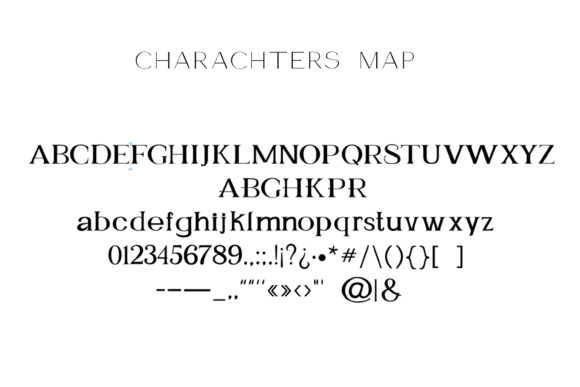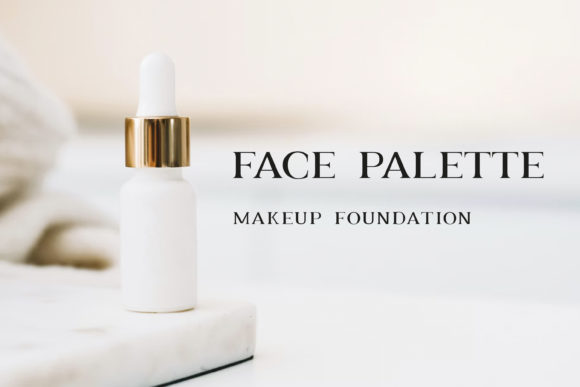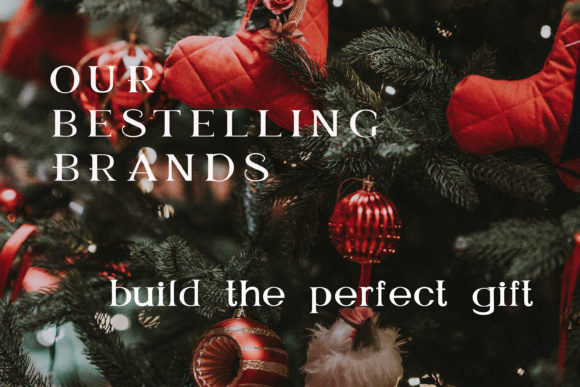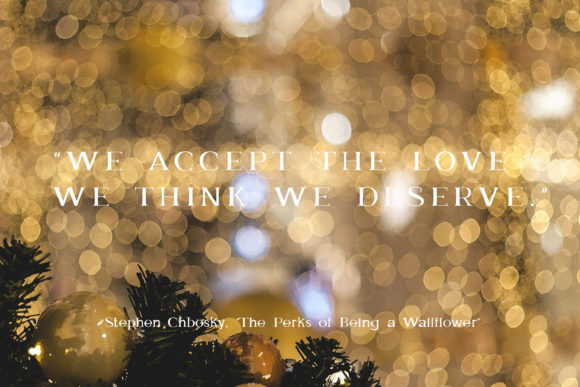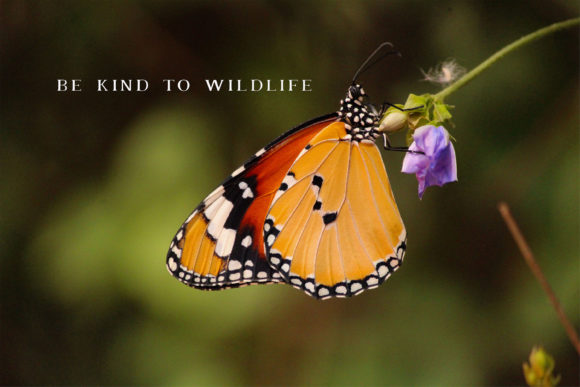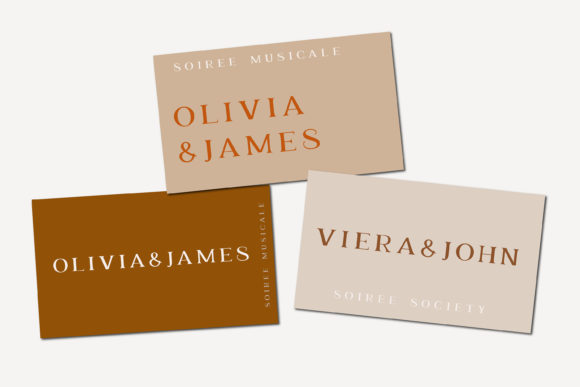
Introduction to Haganes Serif Font
Haganes is a serif font with a modern look and minimalistic style.
Haganes is universal, and it works great in headlines, high-end branding, logo designs, magazines, product packaging & invitations .
Key Features of Haganes Serif Font
Why Choose Haganes Serif Font?